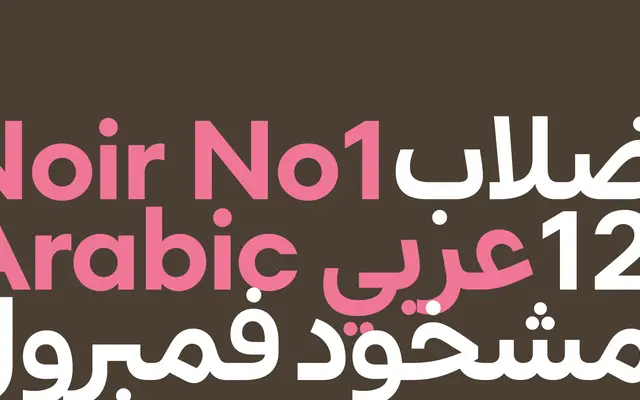
Noir No1 Arabic
An Arabic display typeface from Playtype, presented as a companion to the Noir No1 family.
Noir No1 Arabic extends Playtype's Noir No1 into Arabic script, shown here in a bold headline sample. The page content is minimal, offering little detail on weights or language coverage beyond the single Arabic phrase displayed. Its positioning within the Noir family suggests editorial and display applications.
The name and foundry context suggest a display typeface with Arabic script support, likely a companion to an existing Latin display family. Classified as display arabic given the dramatic headline sample shown.